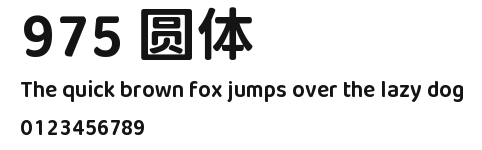
975 圆体 Preview
• Font Name: 975 圆体
• Font ID: 975Maru SC Bold:Version 2.001
• Full Font Name: 975Maru SC Bold
• Version: Version 2.001;October 14, 2020;FontCreator 13.0.0.2613 64-bit
• PostScript Name: 975MaruSC-Bold
• Character Count: 44815
About 975 圆体.ttf
975 圆体.ttf is a modern, elegant sans-serif font designed for ultimate readability and visual harmony. Perfect for branding, headlines, web design, and print materials.